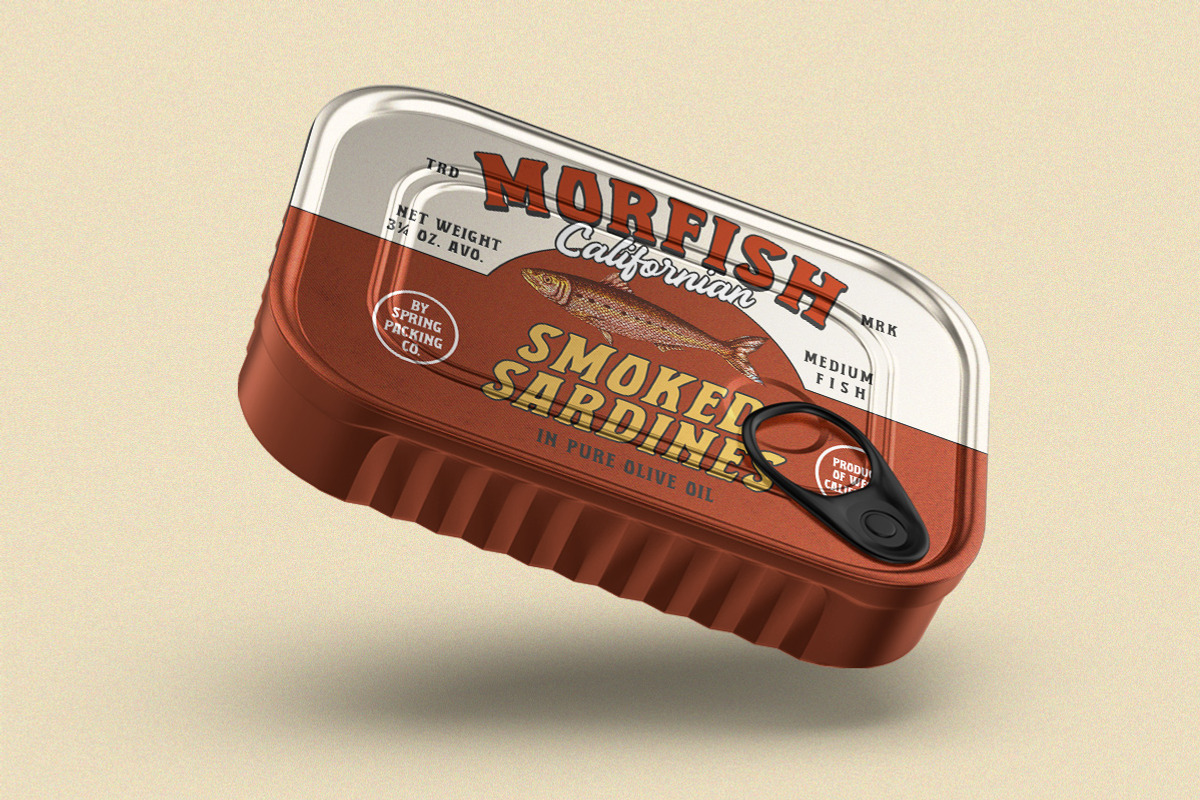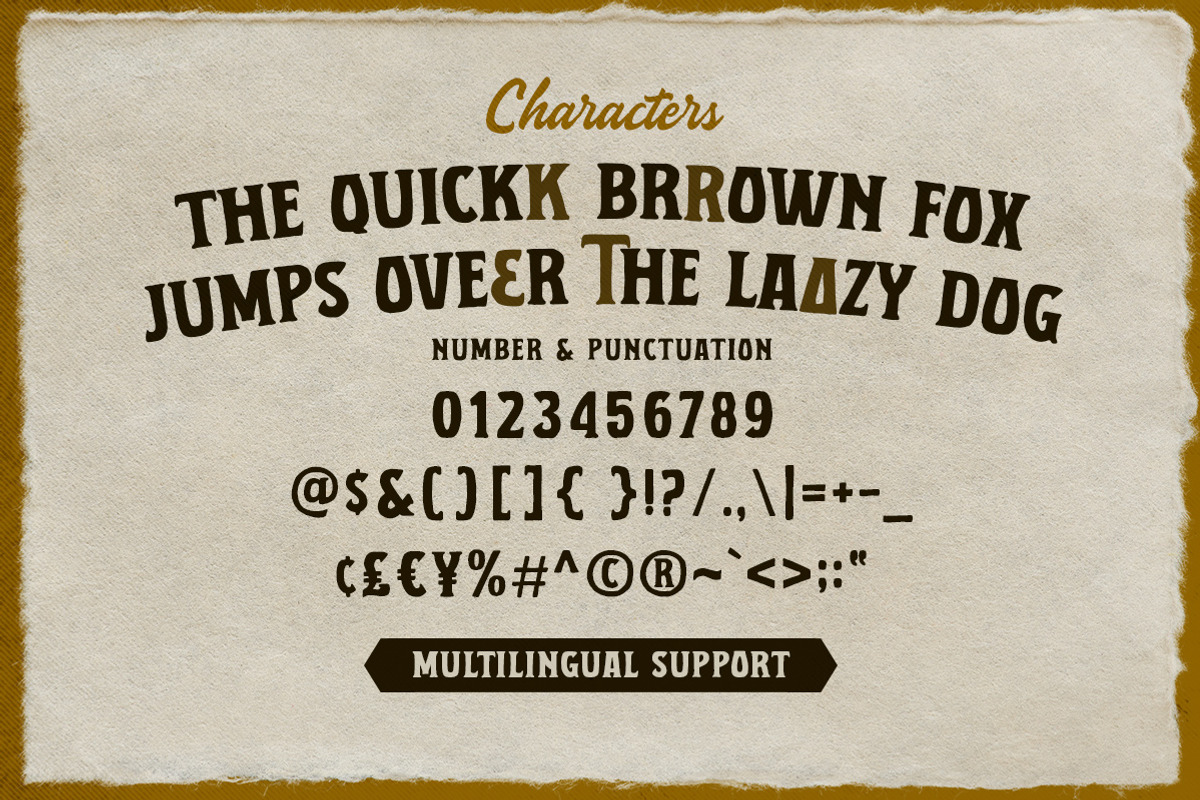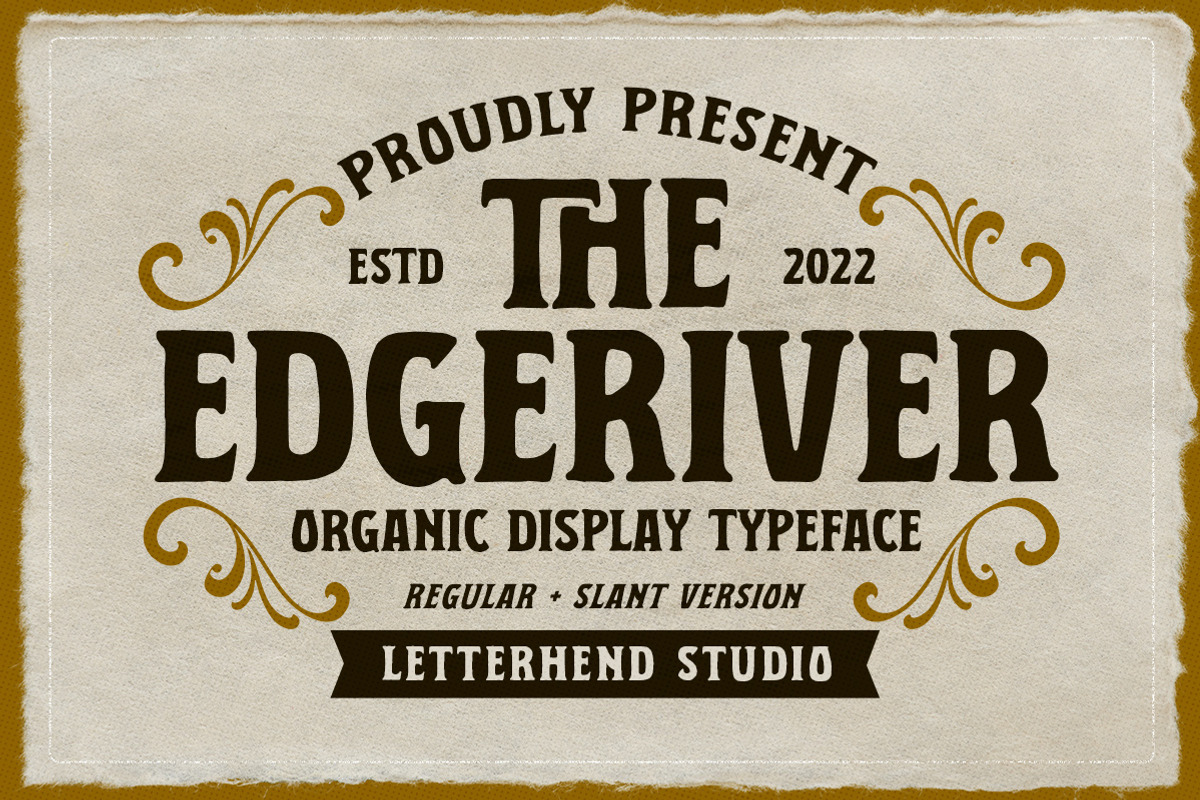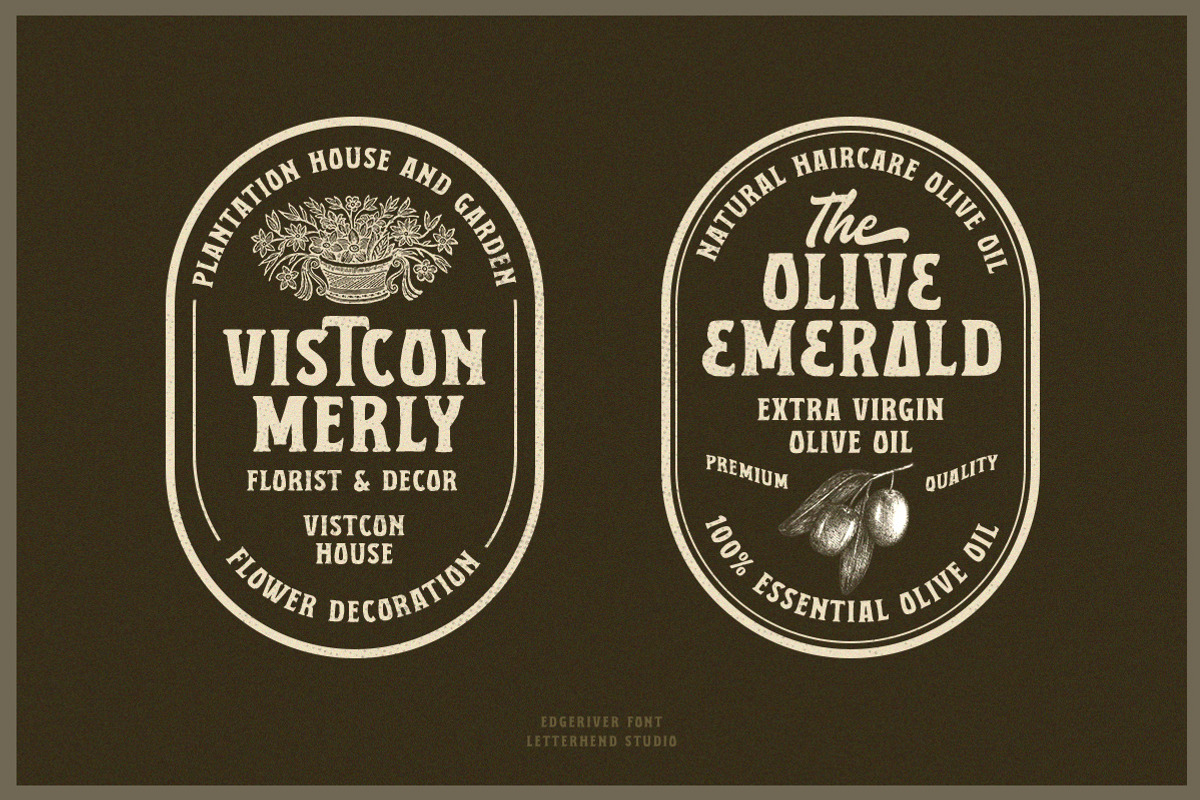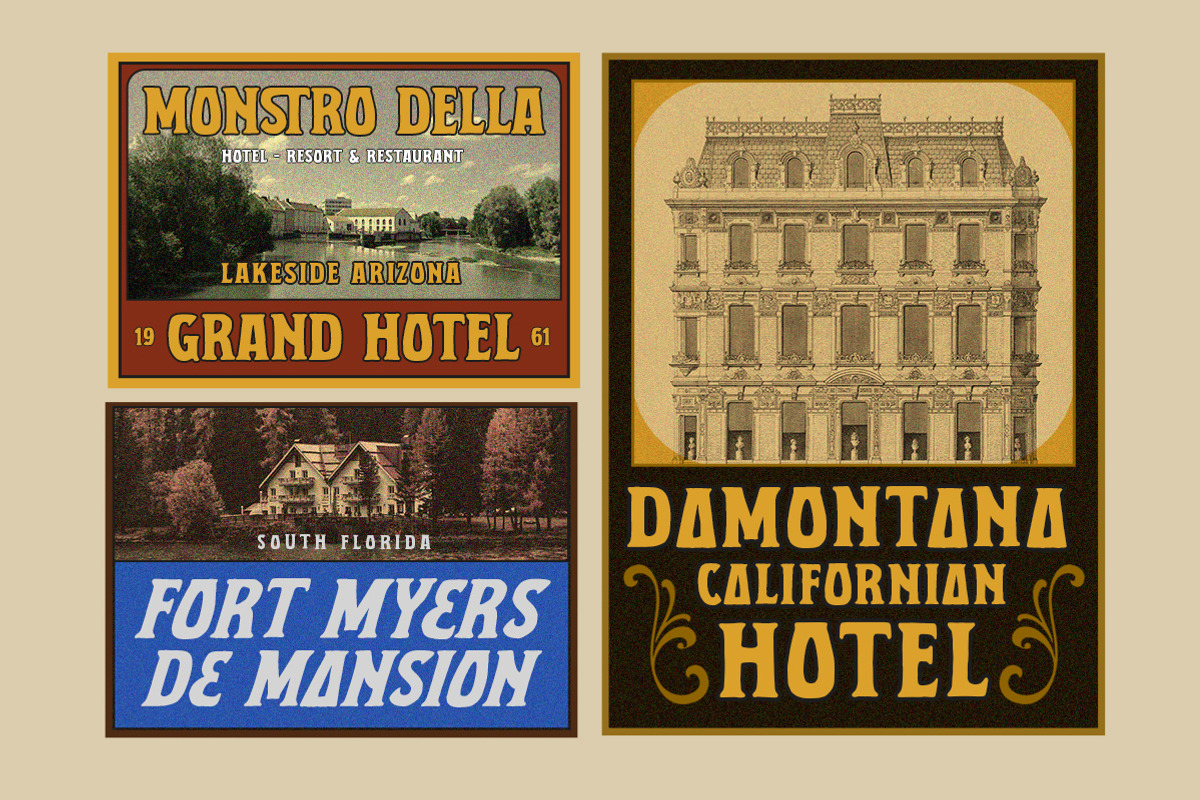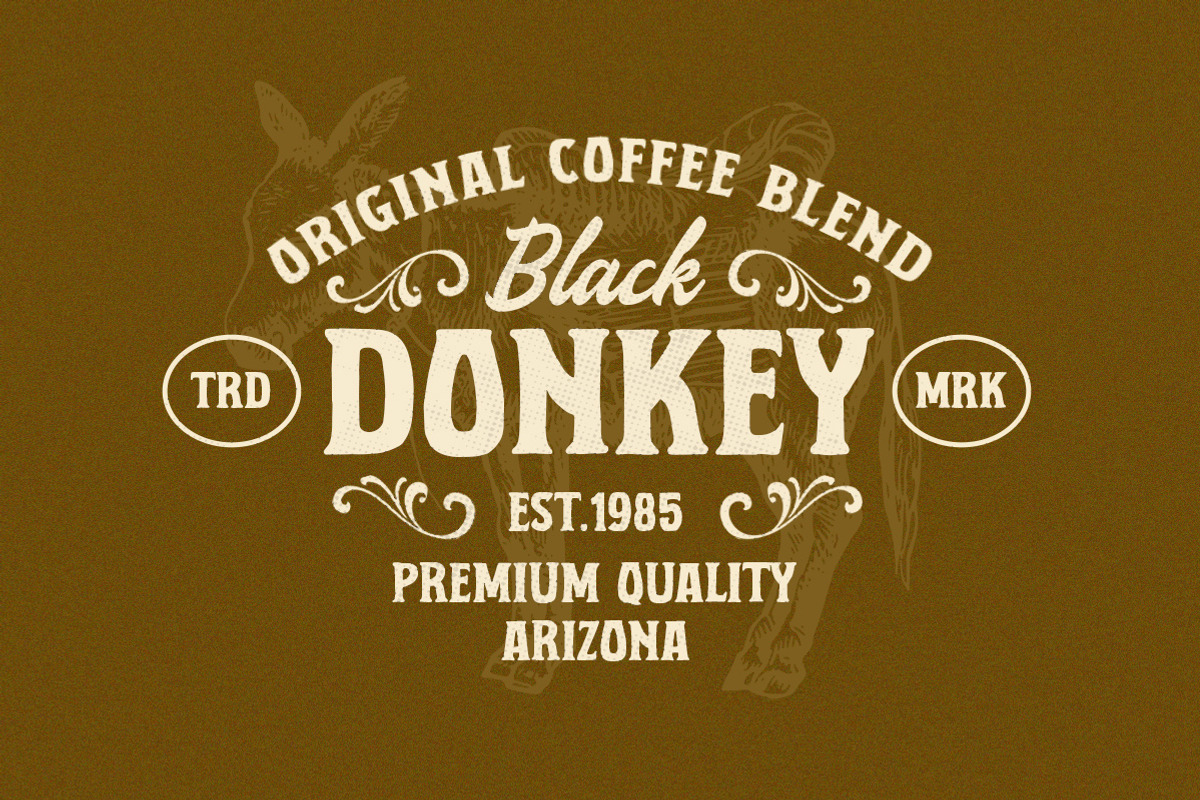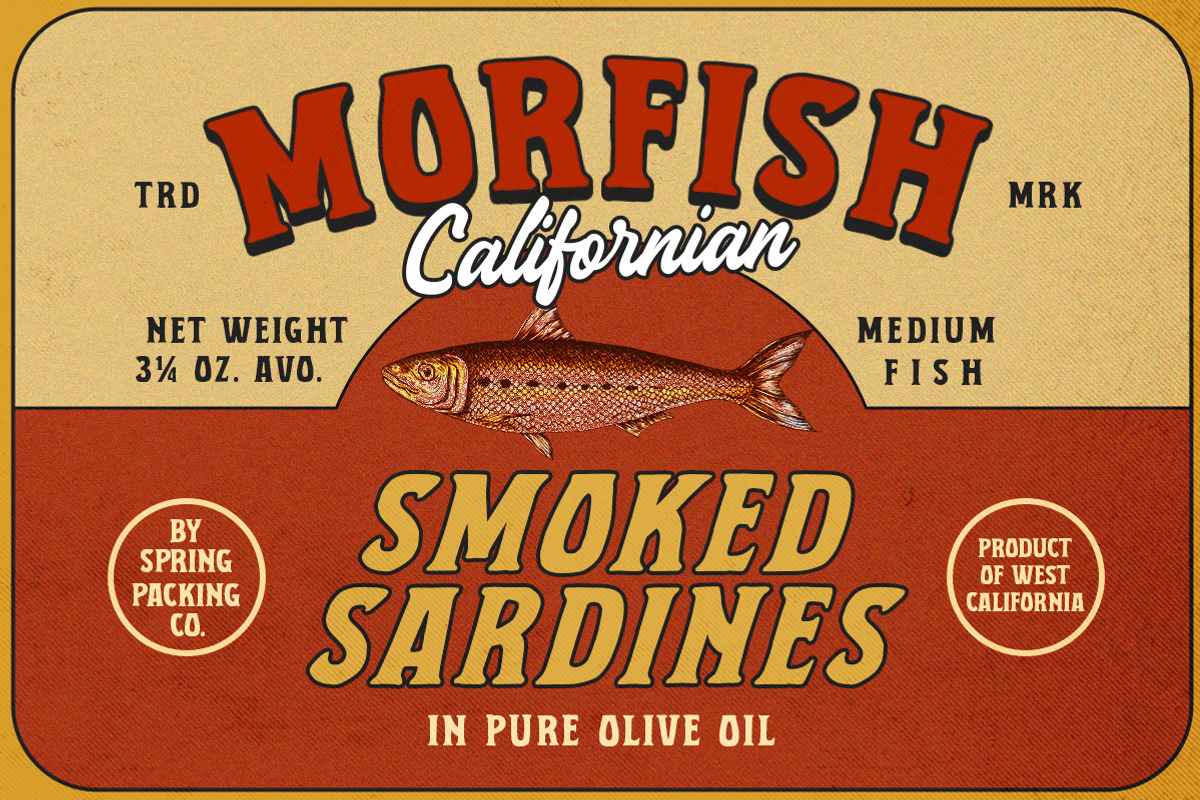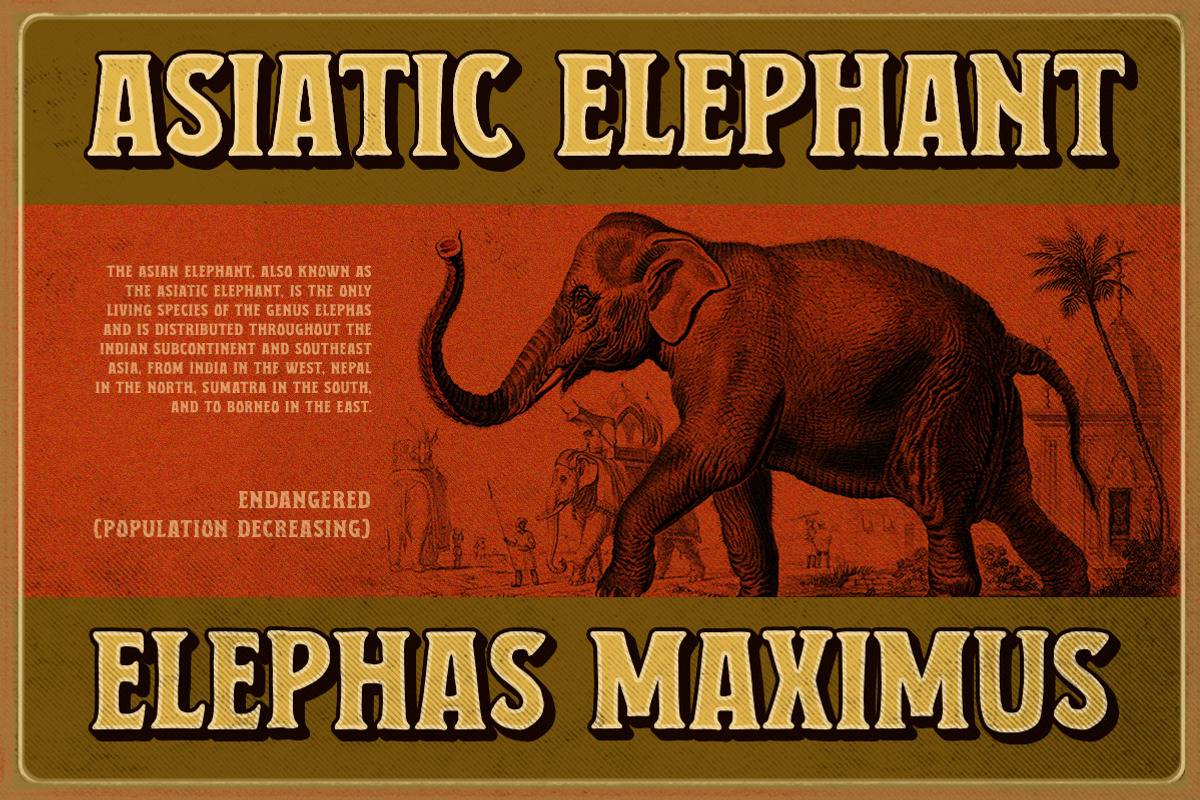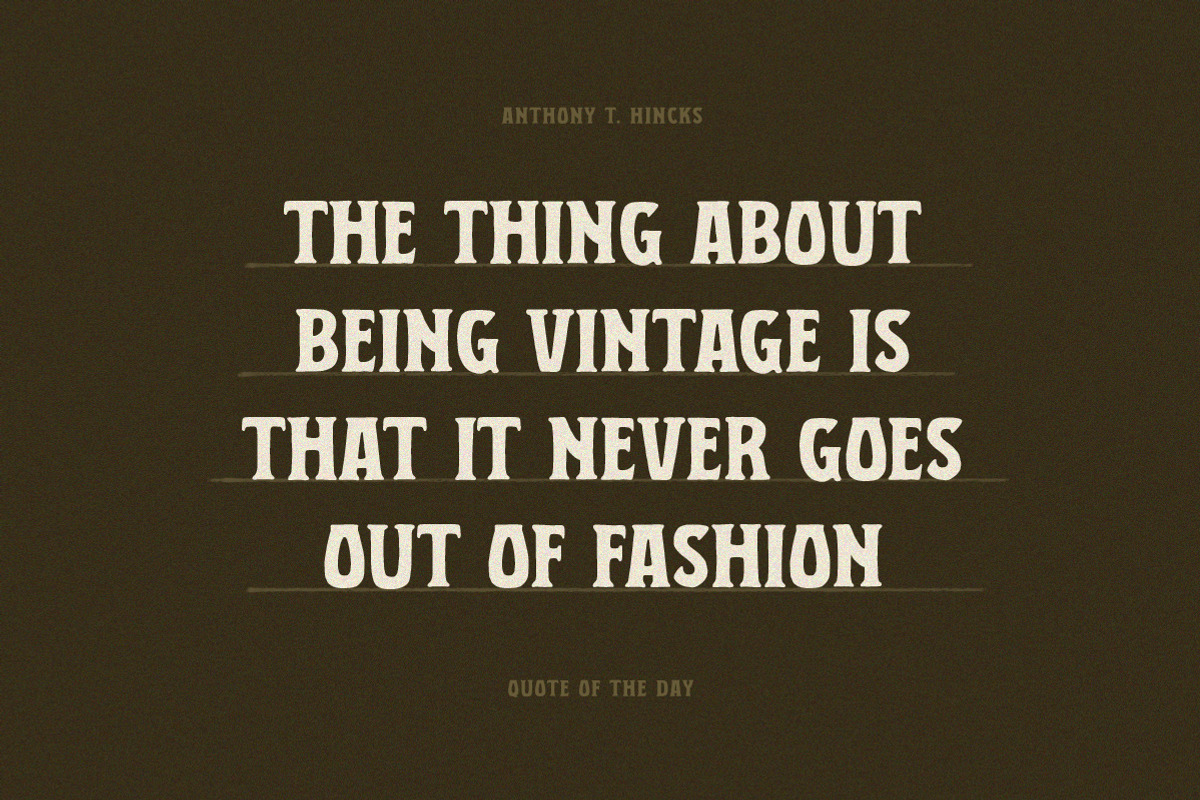
The Edgeriver - Organic
The Edgeriver is a serif display typeface with a touch of vintage look and feel. it was made hand drawn, so it makes looks more natural. it comes with regular and slant version. This type of font perfectly made to be applied especially in logo, headline, signage and the other various formal forms such as invitations, labels, logos, magazines, books, greeting / wedding cards, packaging, fashion, make up, stationery, novels, labels or any type of advertising purpose.
- alternates / swashes and ligatures